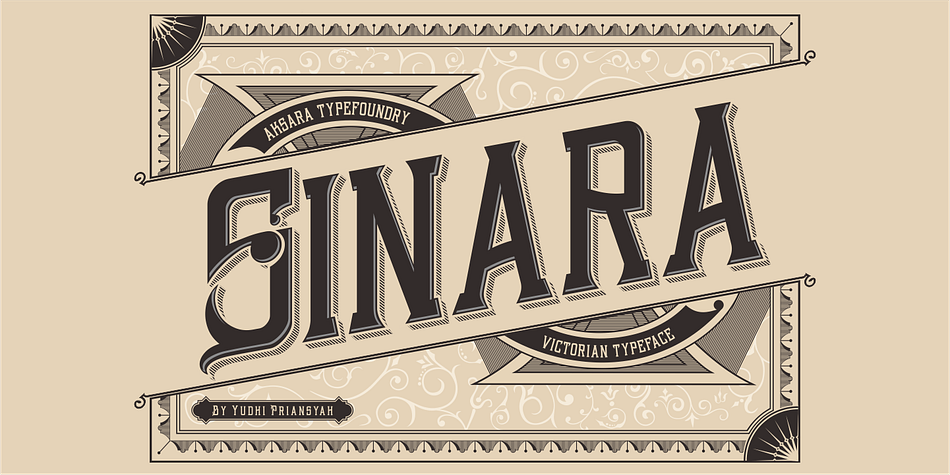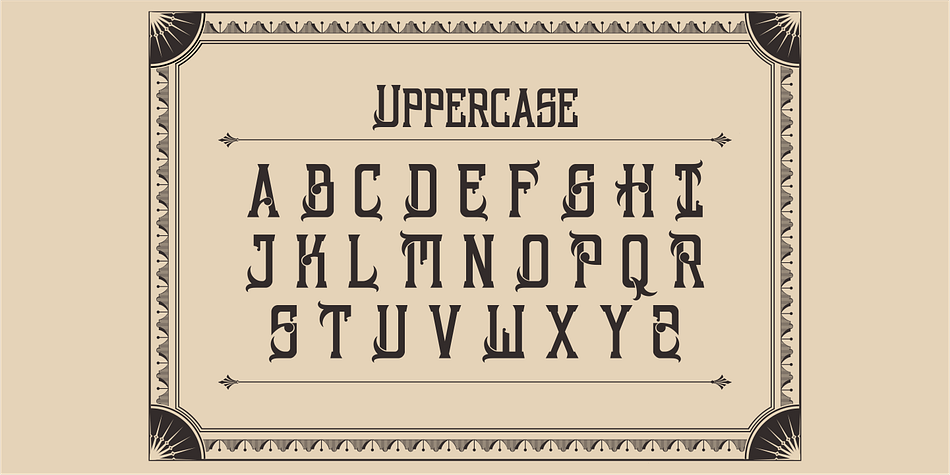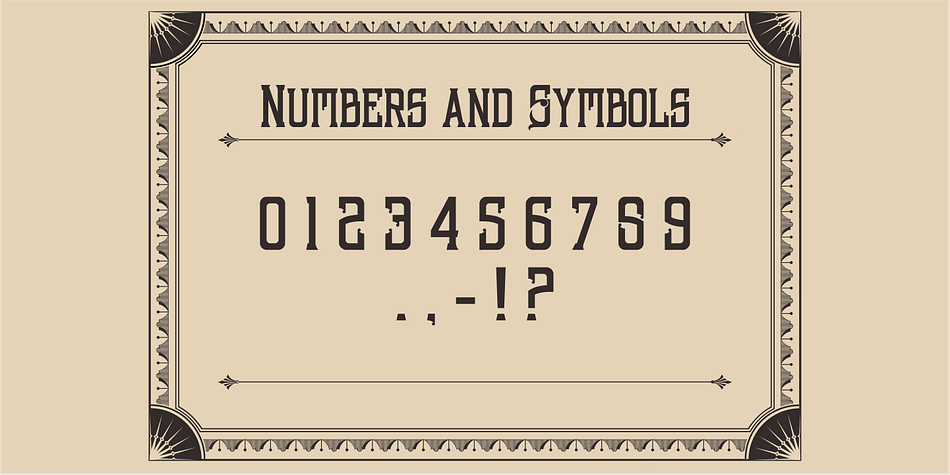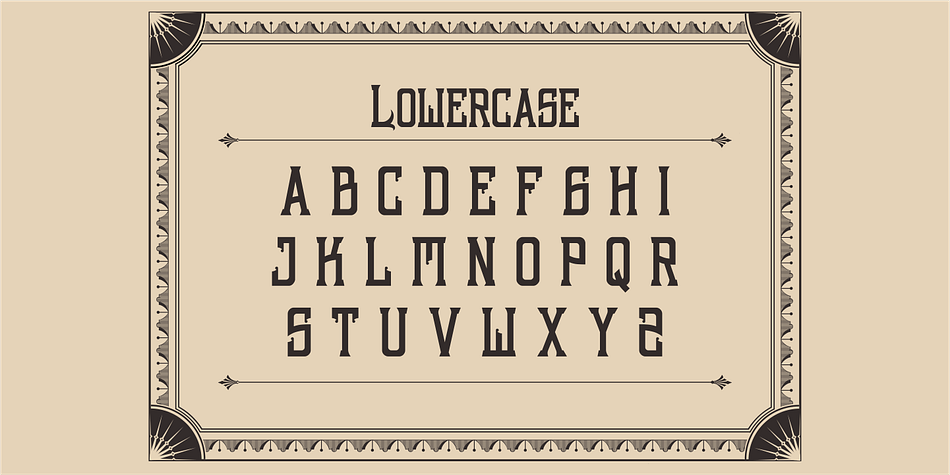
Sinara is a display slab font published by Aksara Typefoundry.
Sinara typeface is a Victorian vintage style typeface, perfect for your vintage word art typography, poster, labels, t-shirt or vintage logo.